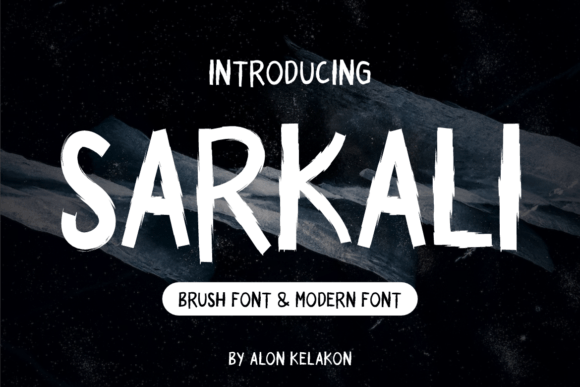
Unleash the power of Sarkali: A Font Symphony that Transforms Your Designs into Masterpieces
In a world of monotonous fonts, Sarkali emerges as a beacon of innovation and artistry, a font family that will revolutionize your design endeavors. Its captivating display style, meticulously crafted by the visionary alonkelakon, is designed to ignite your creativity and elevate your projects to new heights.
Sarkali is the ultimate font for creating a striking and unforgettable brand identity. Its bold and fluid strokes are a visual symphony, effortlessly conveying a dynamic energy that cuts through the noise and leaves a lasting impression. Whether you're designing logos that demand attention, packaging that captivates, or social media graphics that ignite engagement, Sarkali will transform your designs into masterpieces that speak volumes.
The versatility of Sarkali is boundless, extending far beyond its initial purpose as the Best Font for Business Letters. Its artistic flair lends itself seamlessly to a diverse range of applications, from wedding invitations that exude elegance to posters that burst with vibrancy. Sarkali is the perfect companion for any project that demands a touch of sophistication and a dash of boldness.
With Sarkali at your fingertips, you'll discover a font that not only enhances your designs but also enhances your creative process. Its intuitive and user-friendly interface allows you to effortlessly bring your vision to life, while its meticulously crafted glyphs ensure that every letter, every word, every sentence you type carries the weight of artistry and professionalism.